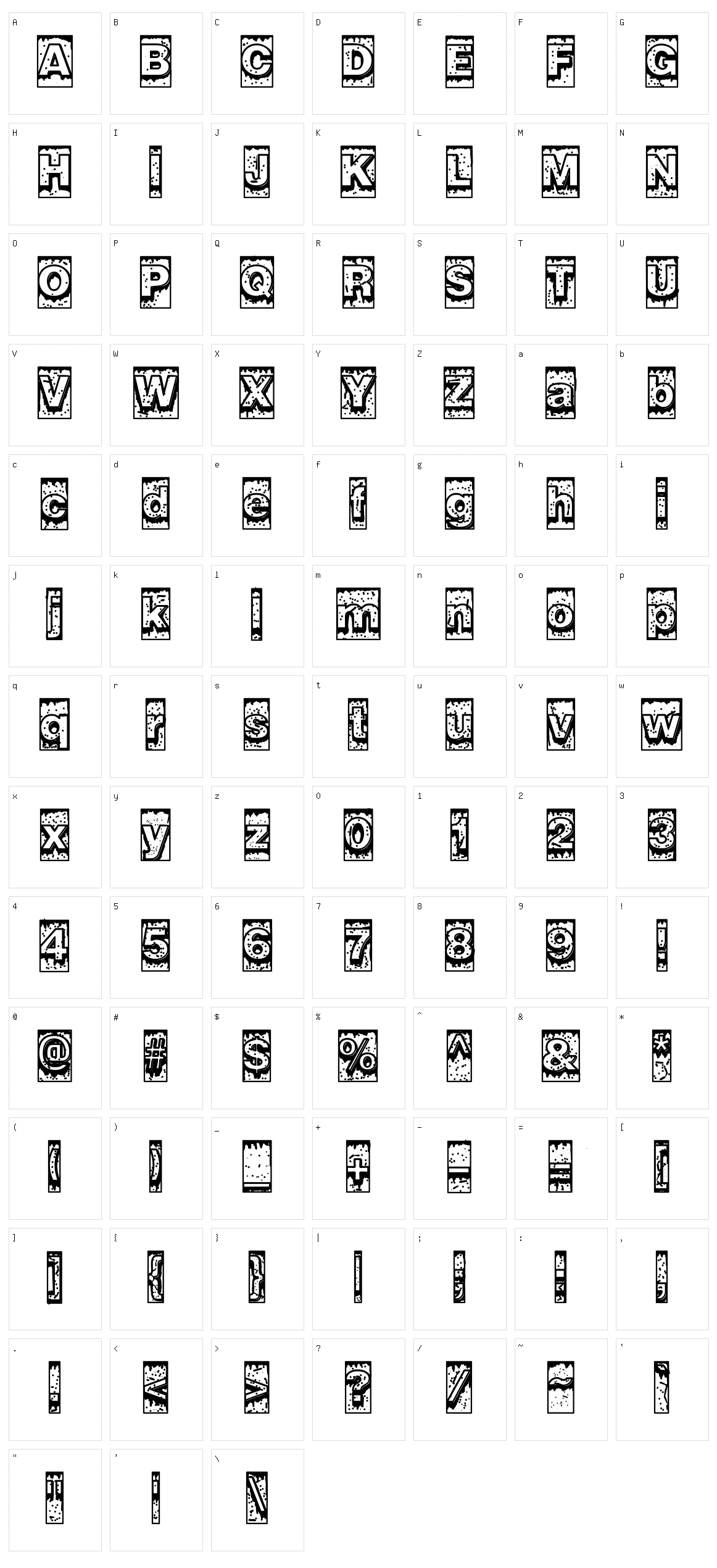
The free font Swamp Type is carefully designed by Omega Font Labs, showcasing a thoughtful balance of creativity and usability and falls under the Decorative font style. When you download the ZIP file, it contains only 70.06 KB of font files, making it lightweight and quick to download. Please review the license details below to understand permitted usage and distribution rights. If license information is not available, we recommend using this font for personal projects only or contacting the author directly for commercial usage permissions.